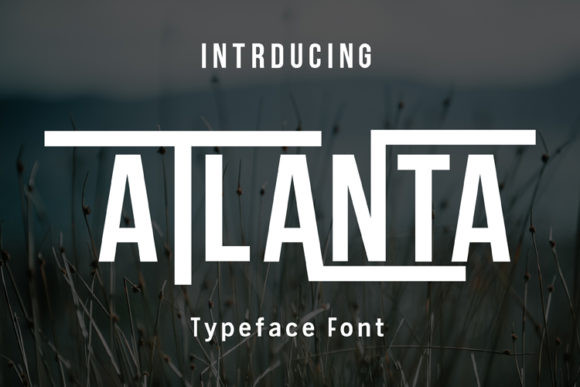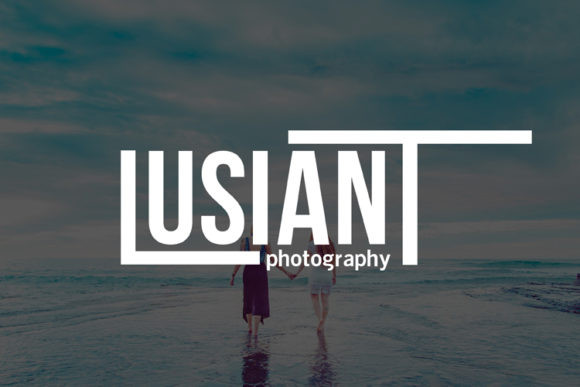
Atlanta Font
Atlanta is a strong sans serif font. It features a classic and minimalist style. It’s perfect for magazines, quotes, social media posts, flyers, branding and much more!